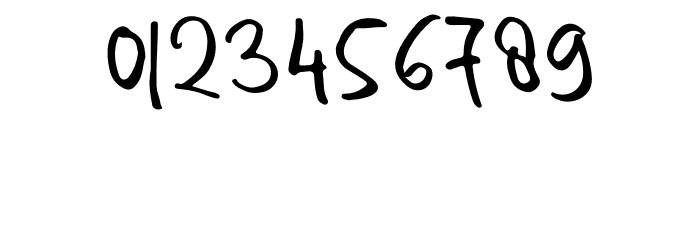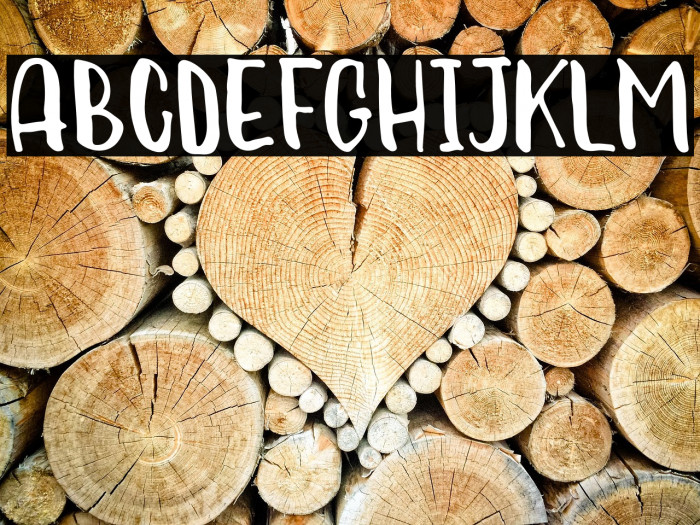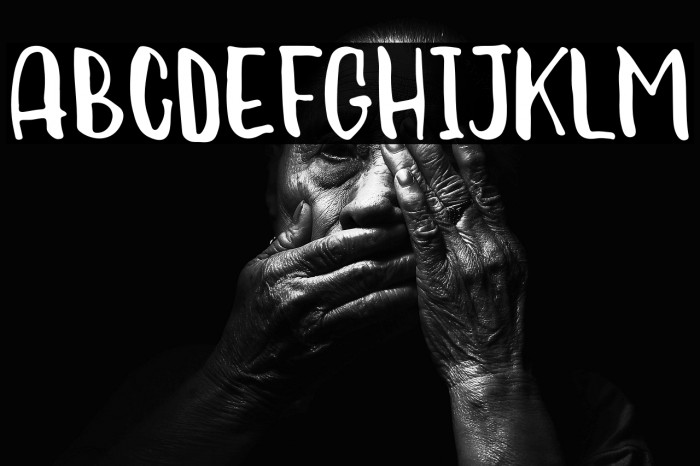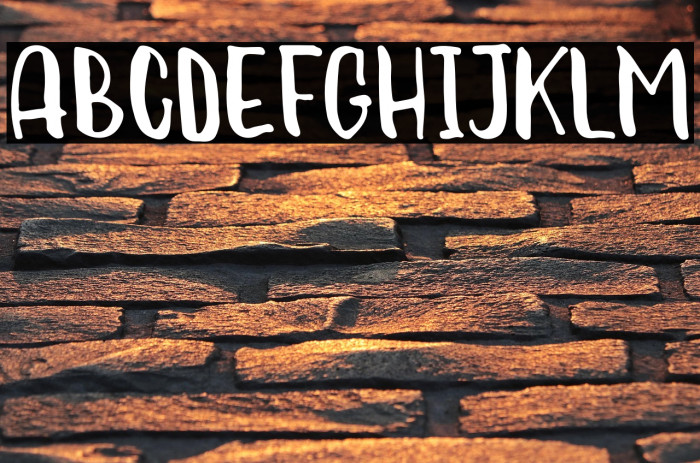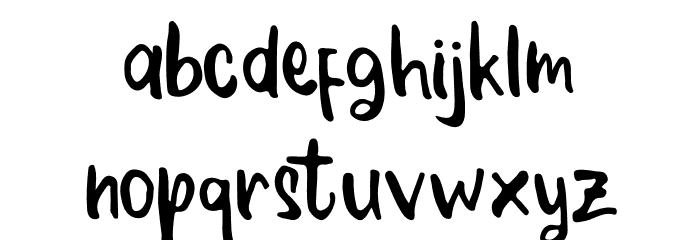
Font de Labile Font
Font de Labile Description
This font features a playful and informal handwritten style, characterized by its irregular strokes and whimsical appearance. The letters have a casual, friendly vibe, with varying stroke widths that add to its charm. The uppercase and lowercase letters maintain a consistent style, with rounded edges and a slightly uneven baseline, enhancing its hand-drawn feel. The numerals and special characters follow the same playful design, making it suitable for creative and informal projects.
| Proposed Projects | Ideal for greeting cards, children's books, playful branding, and casual invitations. |